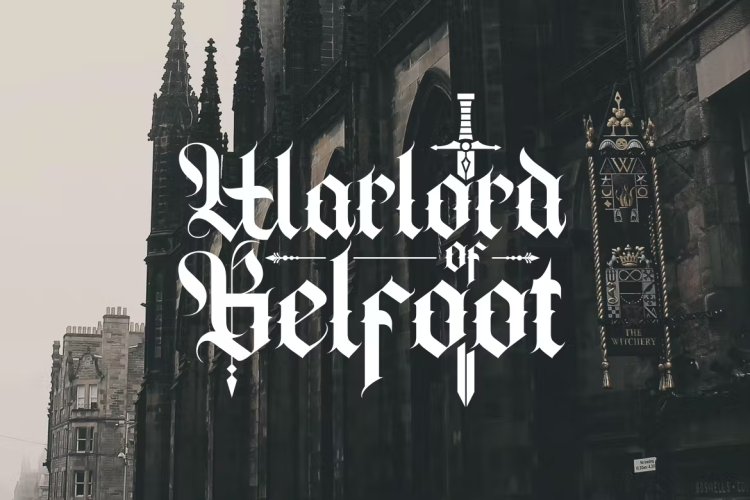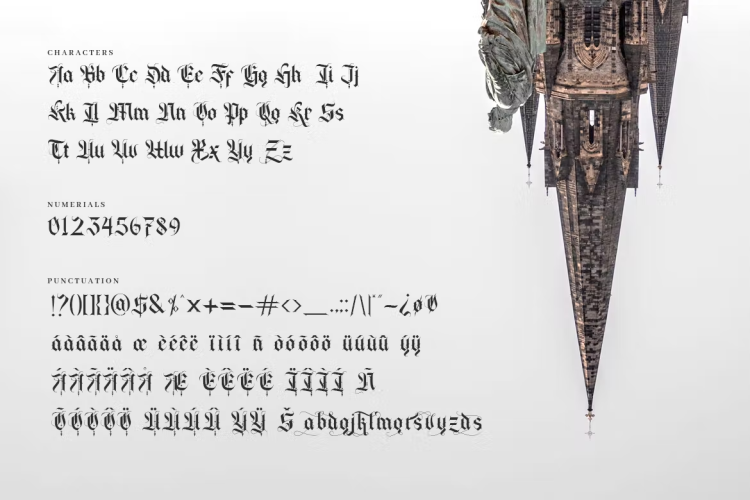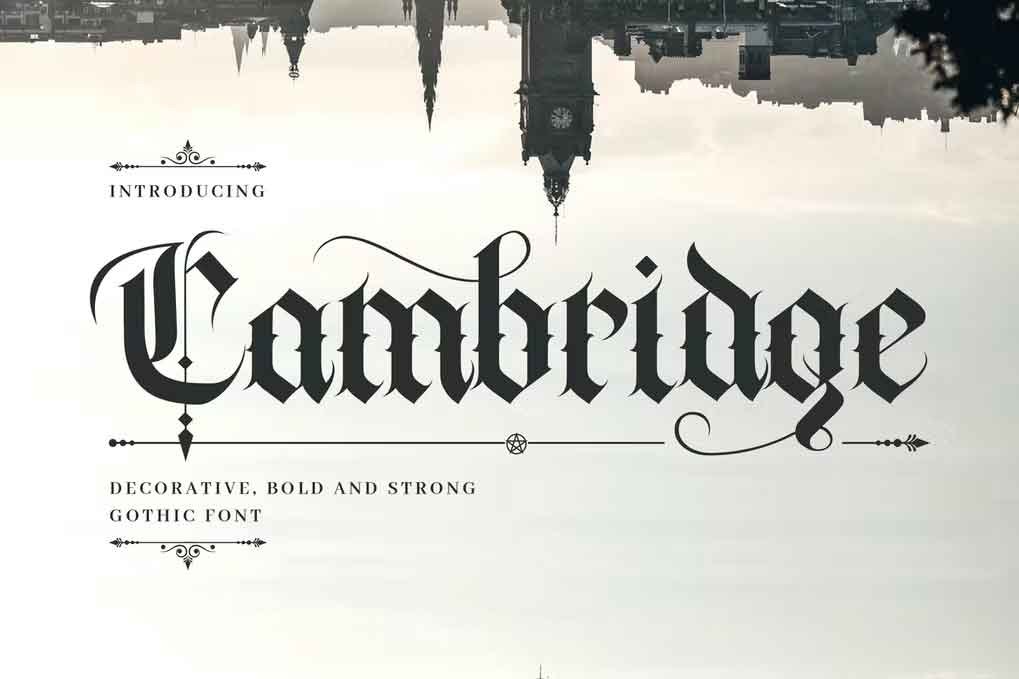
Cambridge Bold Decorative Gothic Font
Introducing Cambridge font. Are you looking for a bold handlettering decorative font that has a medieval gothic feeling? We can help! Try to download our Cambridge font. Suitable to use for any occasion such as book, logo, print, game, event, music, invitation and others
Cambridge Bold Decorative Gothic Font is a Serif Fonts font that brings a professional and versatile look to your projects. Introducing Cambridge font. Are you looking for a bold handlettering decorative font that has a medieval gothic feeling? We can help!.